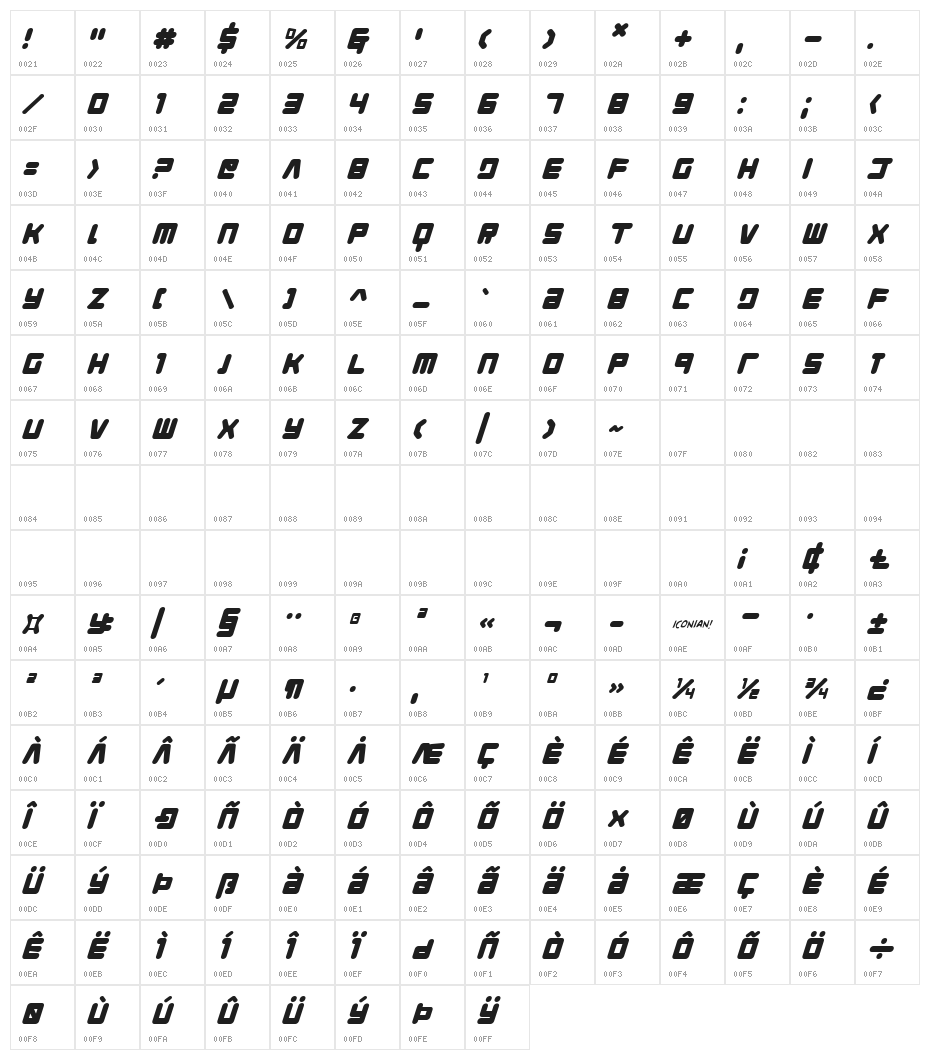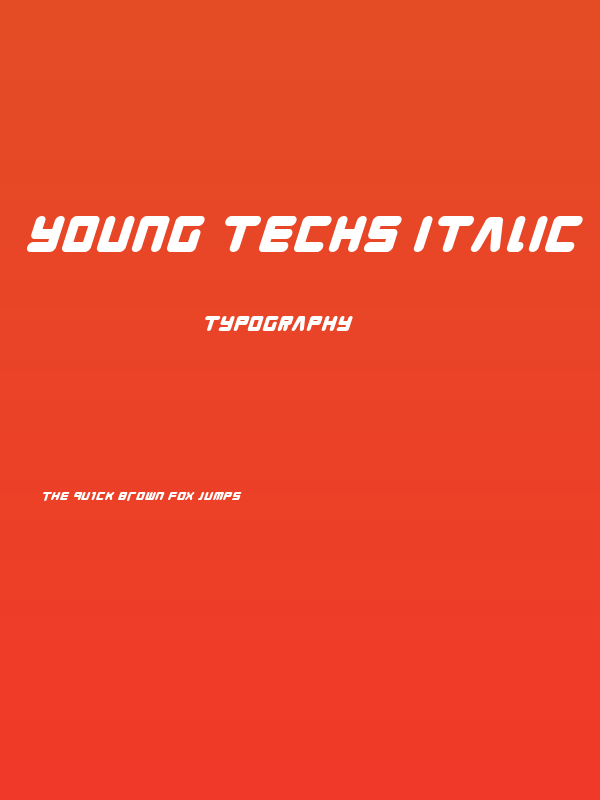
Young Techs Italic Font
Young Techs Italic Description
This font features a futuristic and dynamic design with a distinctly italicized slant, giving it a sense of motion and speed. The characters are bold and rounded, with a consistent thickness throughout, creating a uniform appearance. The design is modern and tech-inspired, with a sleek and streamlined look that is both eye-catching and easy to read. The spacing between characters is tight, enhancing the compact and cohesive feel of the text. This font is ideal for projects that require a contemporary and energetic aesthetic, such as technology branding, sports team logos, or digital media presentations.
Use CaseLogos, Headlines
Proposed ProjectsIdeal for technology branding, sports logos, digital media, and modern advertising.